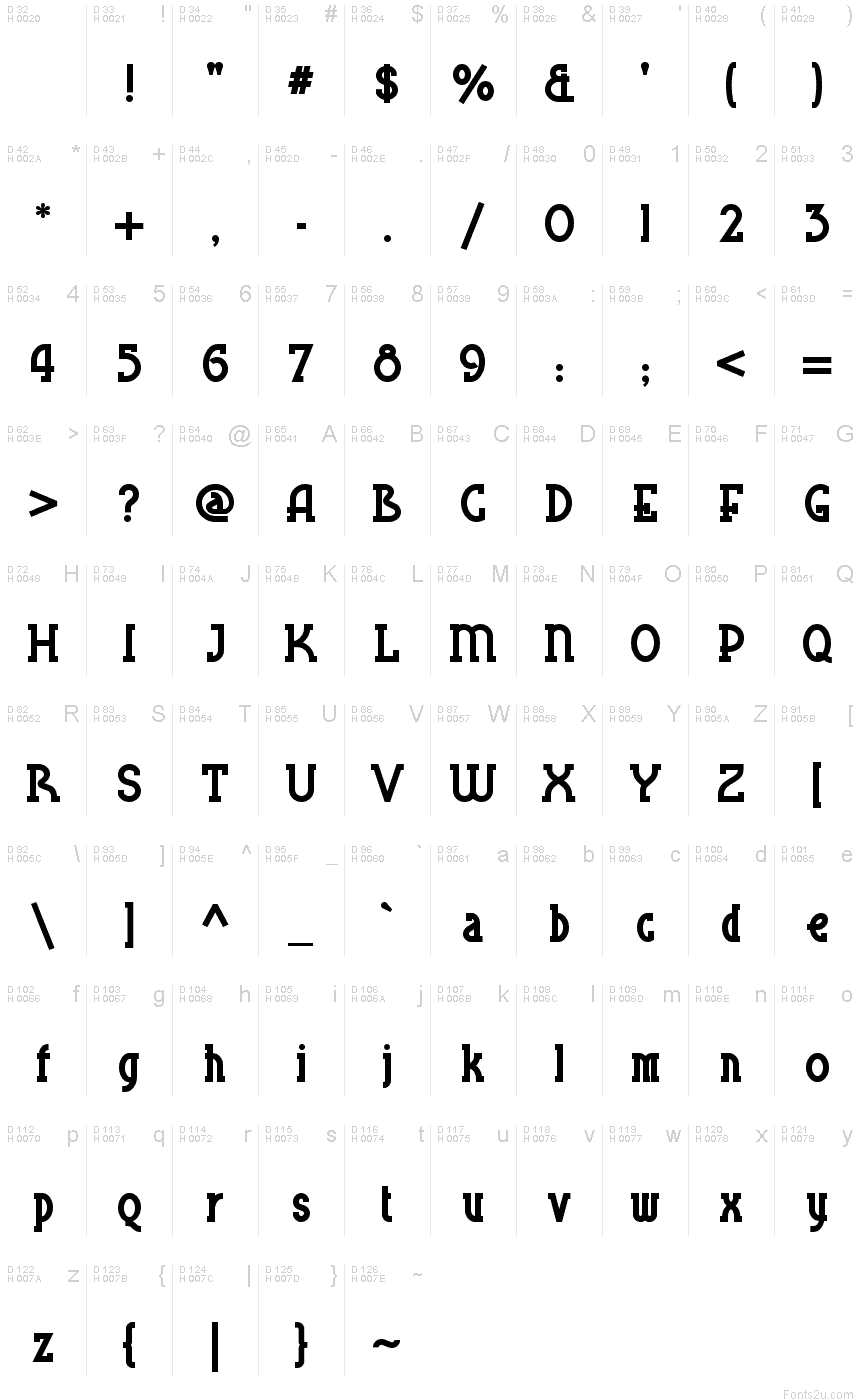
BluePlateSpecialSW
Blue Plate Special SW font by Nick Curtis is a free retro serif typeface that feels like it was pulled straight off a chrome-trimmed diner sign. Its chunky vertical strokes, soft curves, and slightly compressed forms create a bold, inky rhythm that reads clearly while still feeling wonderfully nostalgic. The letters stack together like hand-painted menu boards, giving your titles a warm, tactile charm.
Using Blue Plate Special SW, you can instantly give character to restaurant logos, menu headings, food-truck branding, vintage posters, event flyers, and retro packaging. This free font shines at larger sizes where its curls and sturdy shapes can breathe; pair it with a simple sans-serif for supporting text to keep the overall look balanced and legible.